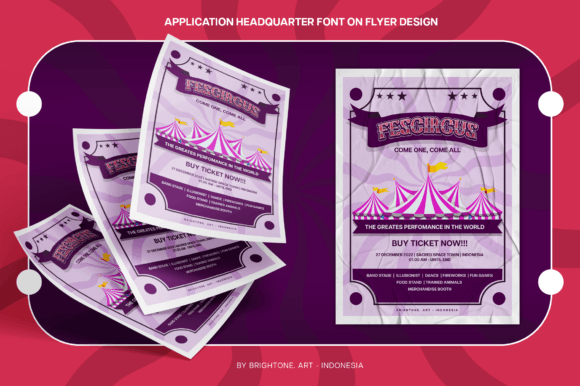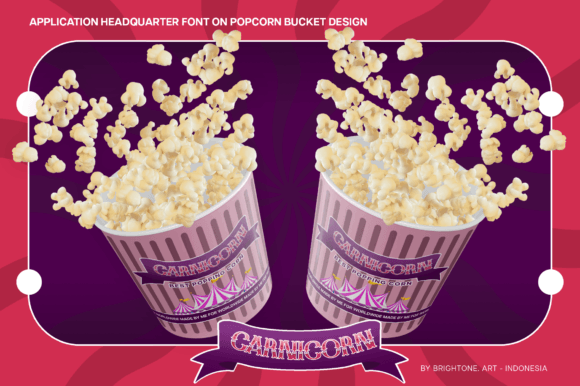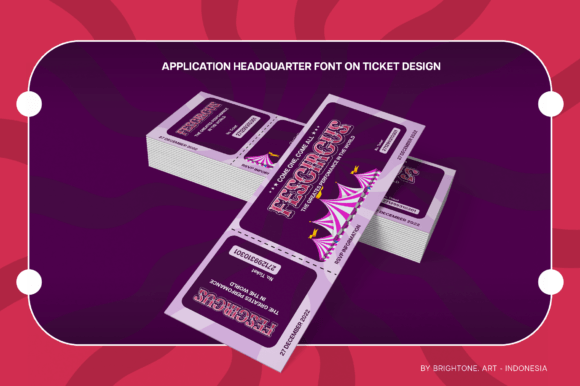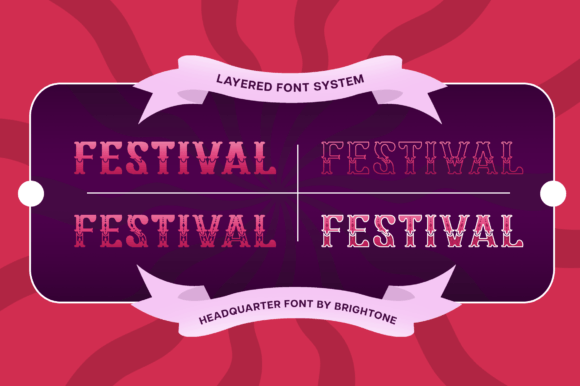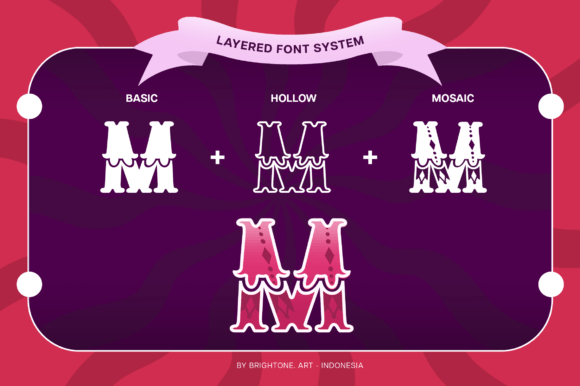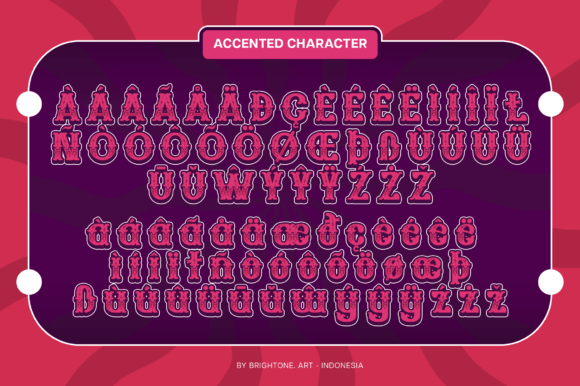
Introduction to Headquarters Font
Have you ever found yourself scrolling through a vintage advertisement or an old movie poster and stopped dead in your tracks by a font that screamed “look at me”? That’s exactly the kind of impact the Headquarters Font can have on your creative project. With its bold, carnival-inspired style, this font is a true showstopper.
As designers, we’re always on the lookout for unique design resources that can help us stand out from the crowd. And the Headquarters Font is definitely one of those gems. Its high-quality design and versatility make it a valuable addition to any designer’s toolkit.
- High-quality design: Headquarters Font is a professional and modern font perfect for any creative project, offering a sleek and sophisticated look.
- Unique characteristics: The font features a unique blend of modern and vintage elements, making it an excellent choice for designers looking to add a touch of elegance to their creative project.
Honest Review: Headquarters Font
As a designer, I’m always on the lookout for high-quality fonts to elevate my creative projects. The Headquarters Font caught my attention with its unique, modern design. Let’s dive in and see what it has to offer.
- ✨ Unique design: The Headquarters Font has a distinctive look that sets it apart from other fonts in my collection.
- ✨ High quality: The font is crisp and clear, even when used on a transparent background.
- ⚠️ Limited character set: The font only includes a basic set of characters, which may not be sufficient for more complex projects.
- ⚠️ Not ideal for small text: While the font looks great at larger sizes, it can become difficult to read when used for small text.
Overall, I’m impressed with the Headquarters Font’s unique design and high quality. While it may have some limitations, it’s a great addition to any designer’s toolkit. If you’re looking for a modern, free font to use in your creative project, I’d definitely recommend giving it a try.
Tips for Getting the Most Out of Headquarters Font
Use the Headquarters Font on a transparent background to create a modern and sleek design. Experiment with different font sizes and colors to create visual interest. Apply the font to a creative project, such as a logo or branding material, to create a professional and cohesive look.
The Headquarters Font is ideal for use in business and corporate design projects, such as presentations, reports, and marketing materials. It can also be used in creative projects, such as logos, branding materials, and infographics, where a high-quality and modern font is required.